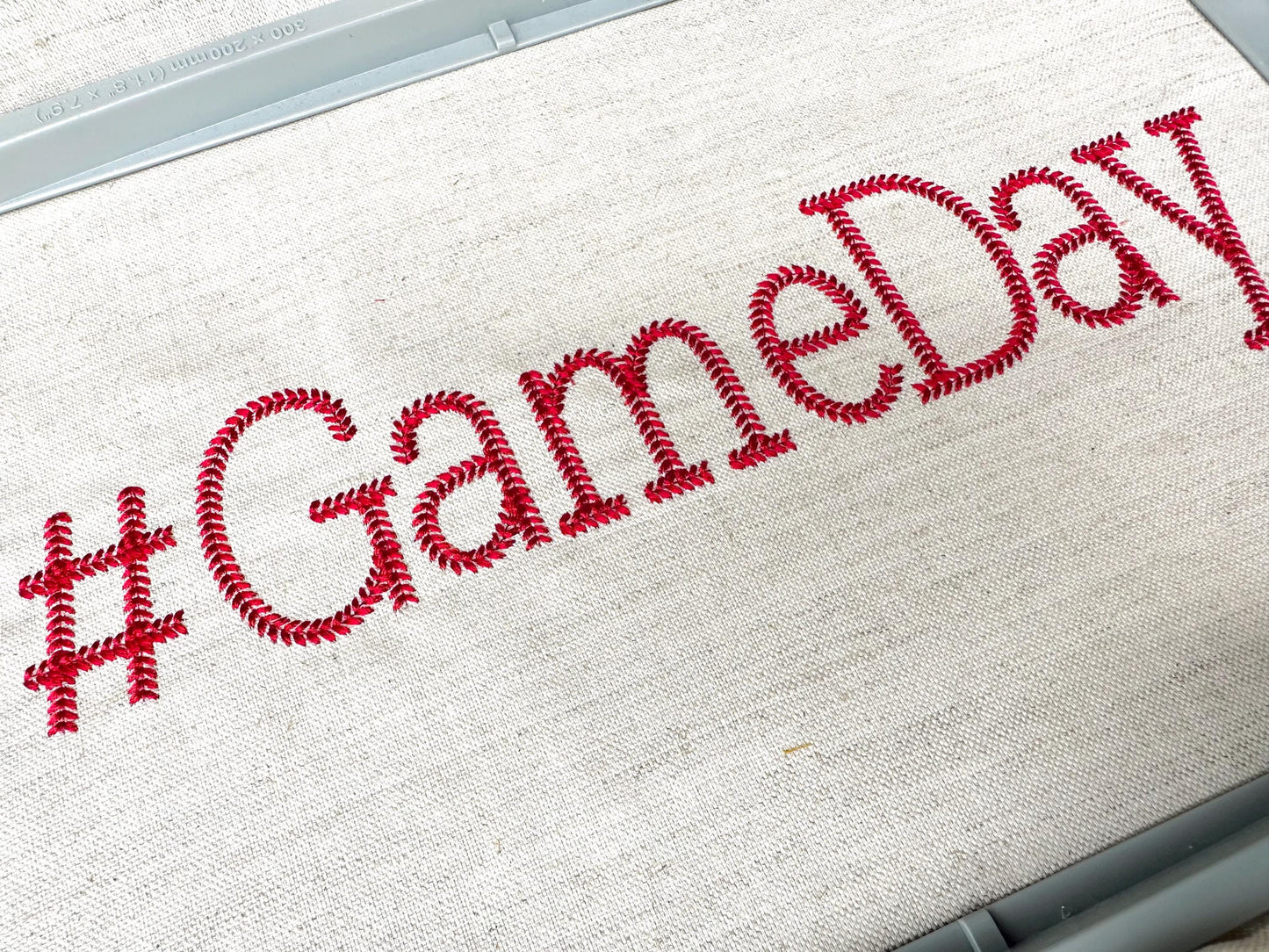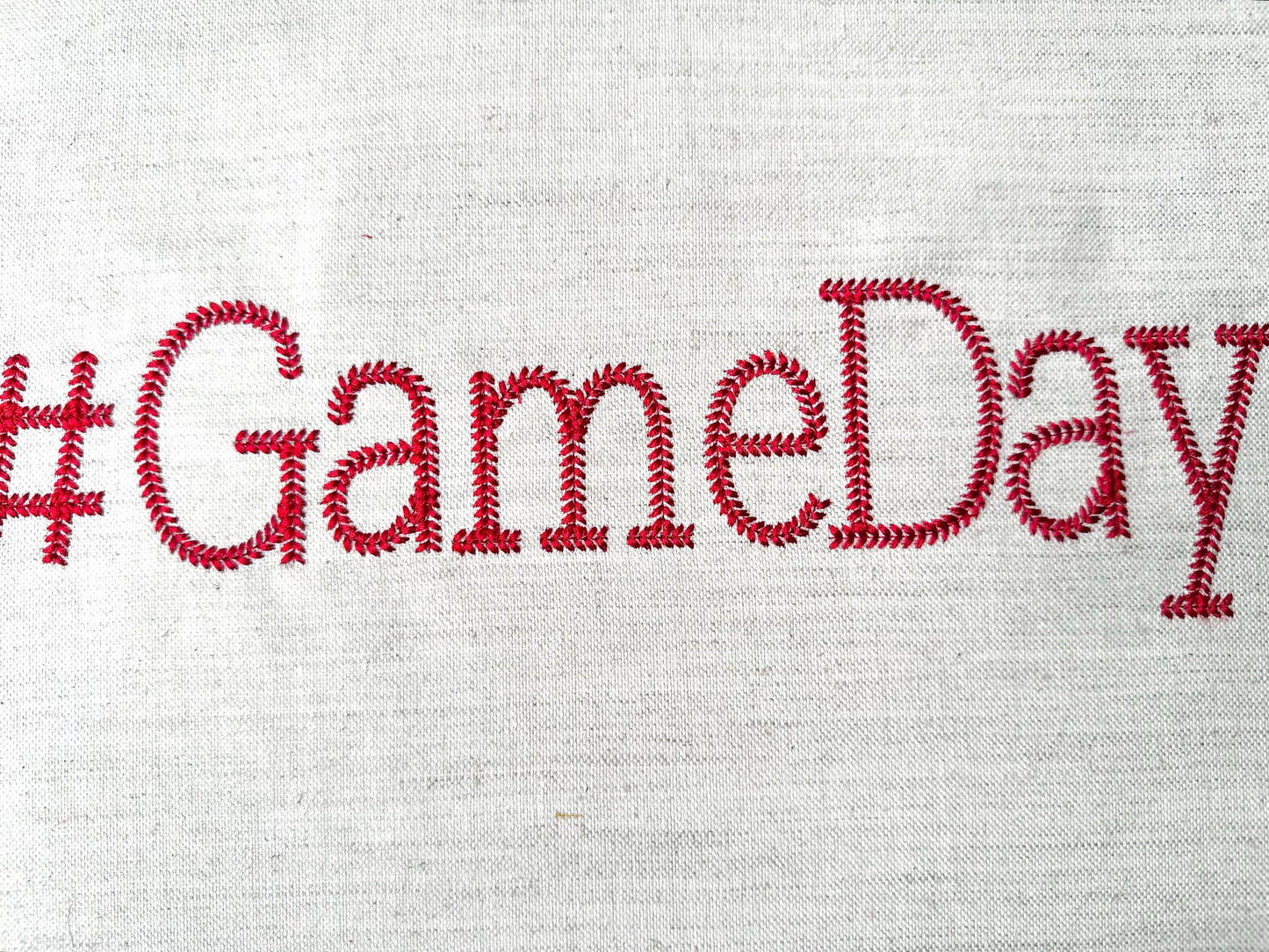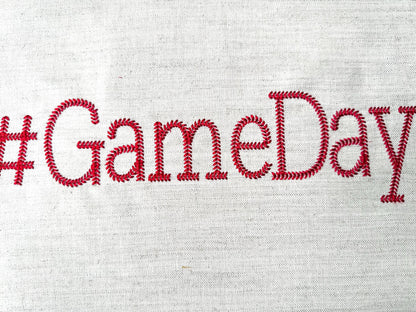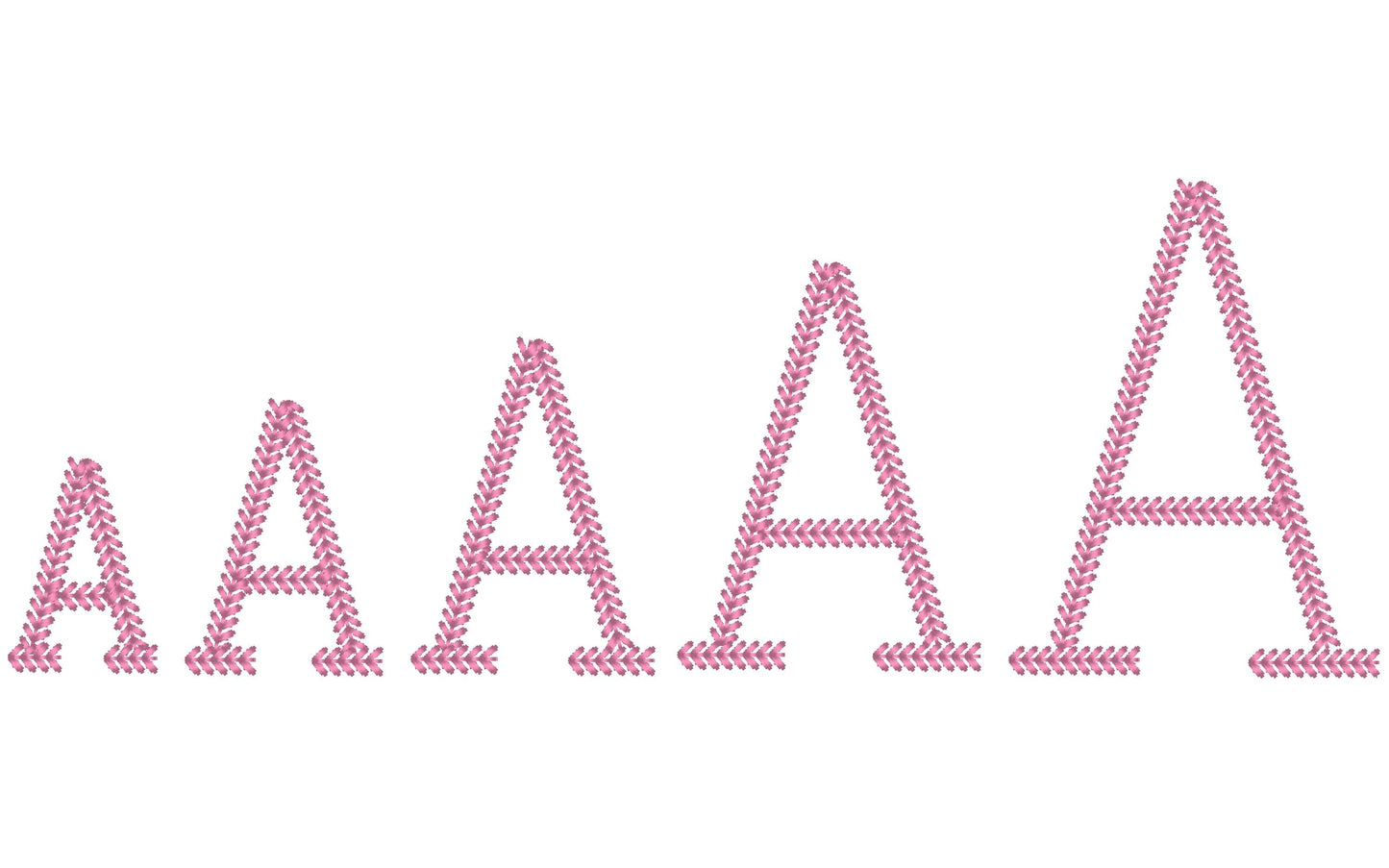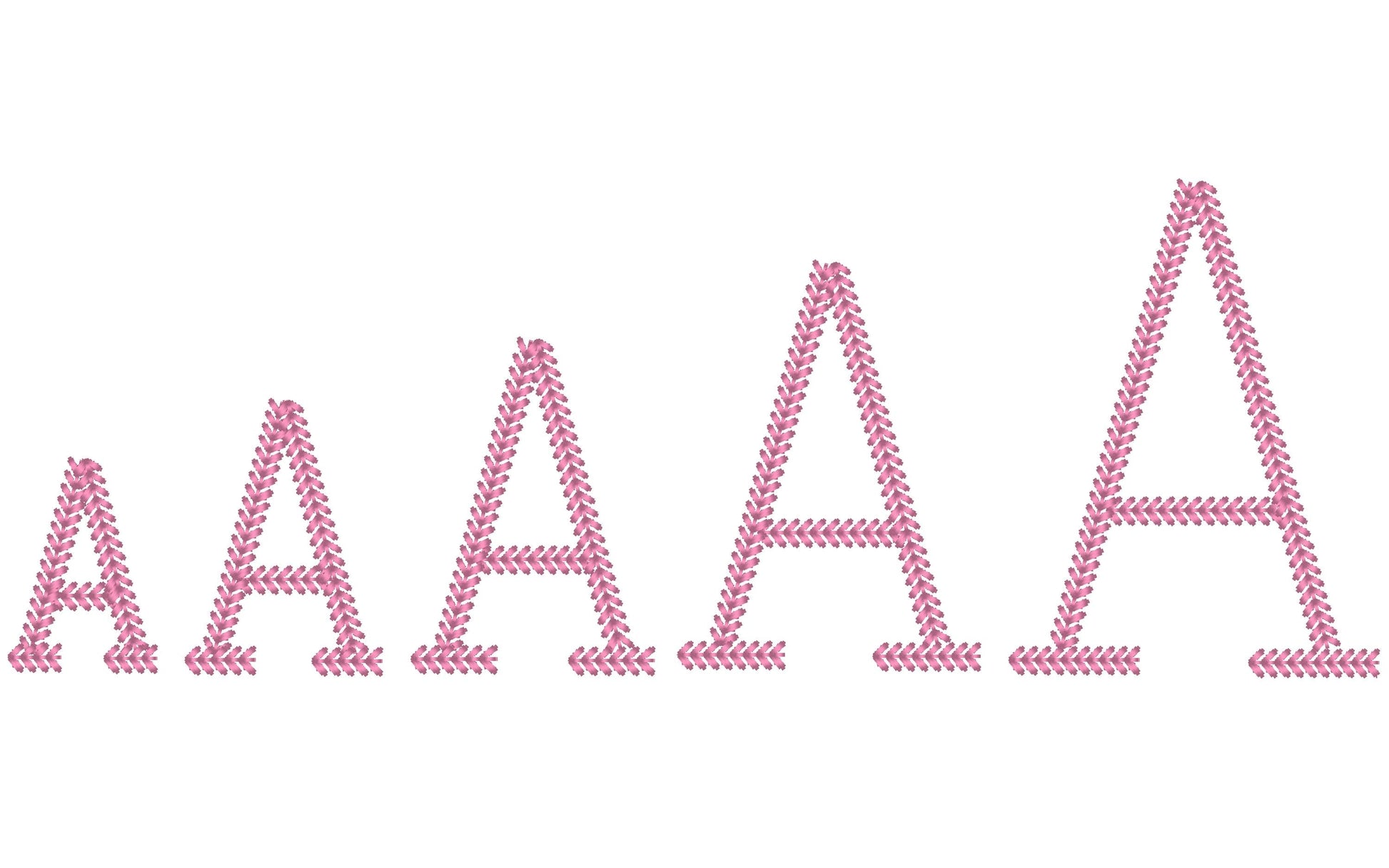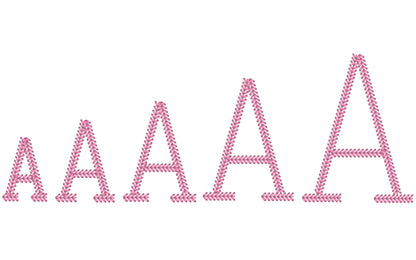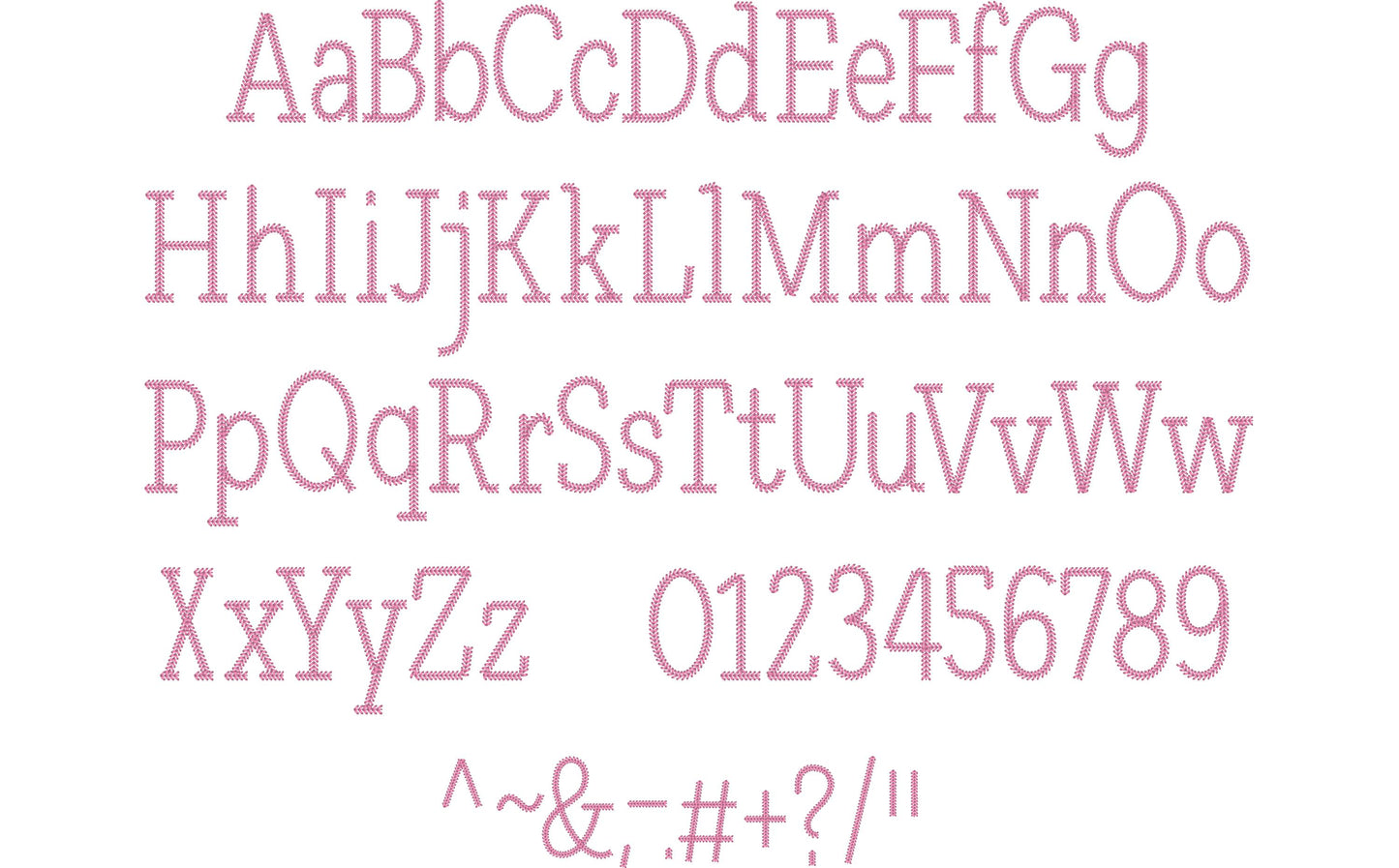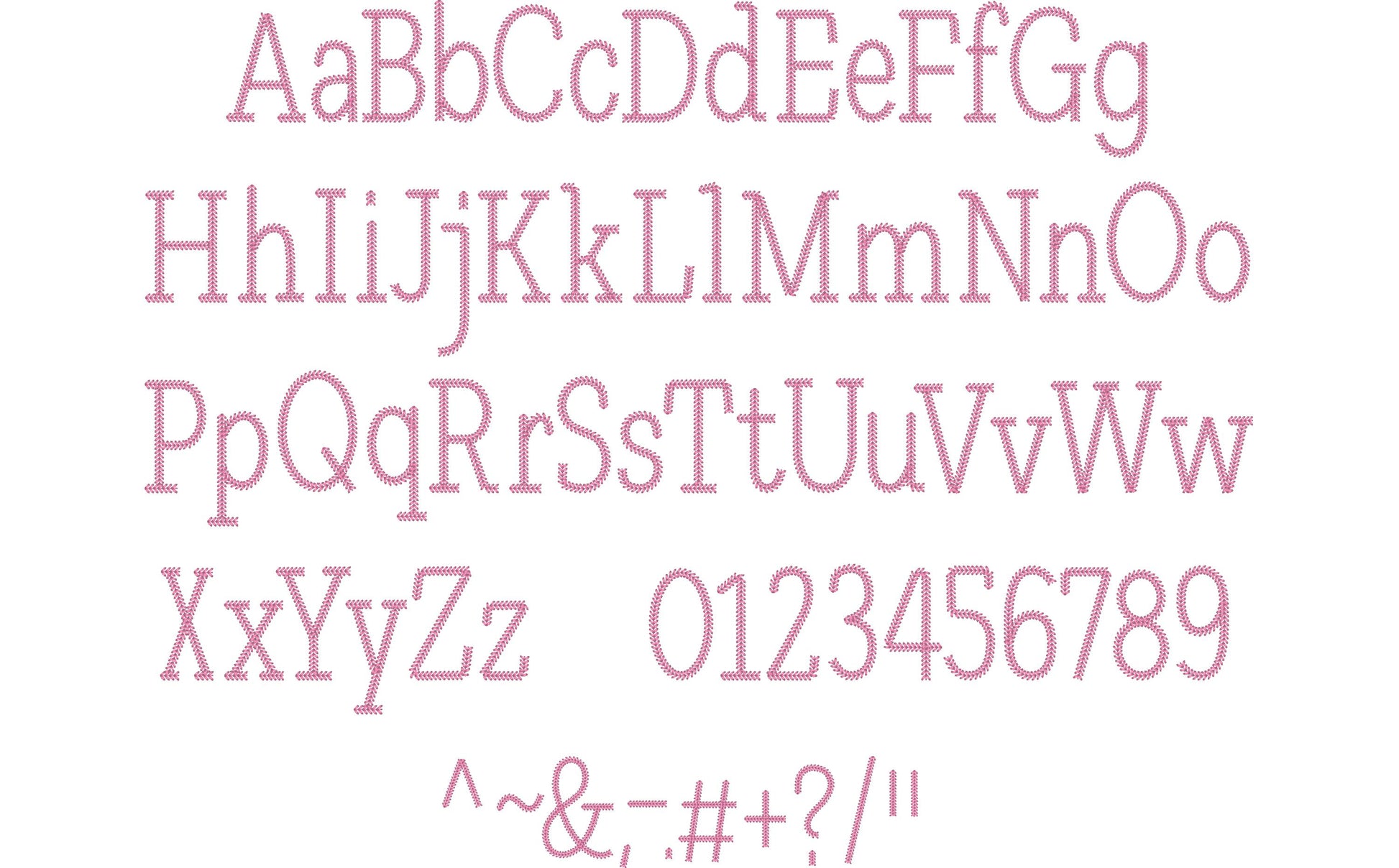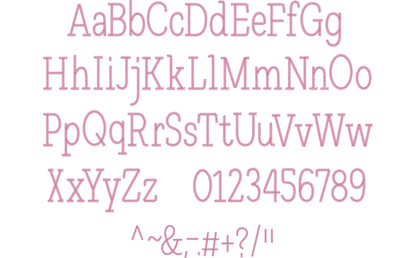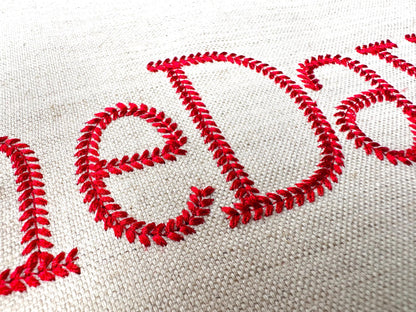
Or click to open the linkA block varsity font with a baseball stitch. Great for baseball and softball shirts, team names and caps.
Uppercase and lowercase letters, numbers 0 to 9 and punctuation. Five sizes: 1.6, 2, 2.5, 3 and 3.7 inches. The stitch copies the classic look of baseball seams and sews out fast.